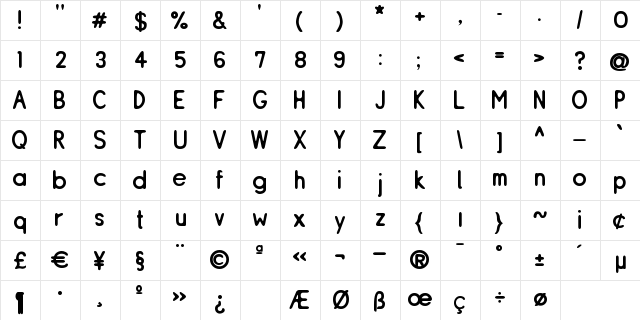
ReSiple Rounded
| Style | Rounded |
Design Context for ReSiple Typeface
ReSiple softens its letterforms with rounded terminals, giving it an approachable, friendly quality that works well in consumer-facing and digital contexts.
Well-suited to UI design, mobile interfaces, and any brand that wants approachability without sacrificing clarity.
Font Pairing: Pairs well with a rounded or humanist sans for body copy, maintaining the friendly tone without relying on ReSiple to carry extended reading.
Pro Tip: Use ReSiple for UI elements, app interfaces, and anywhere a friendly, approachable tone needs to be maintained without sacrificing clarity.